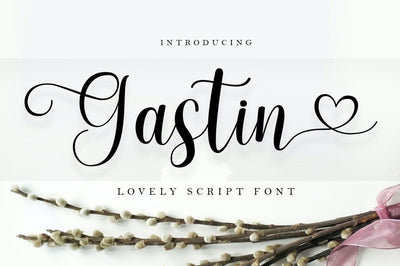
Gastin Script
Gastin Script is a modern calligraphic design, including Regular. This font is casual and pretty with a stroke. It can be used for various purposes. such as logos, product packaging, wedding invitations, branding, headlines, signage, labels, signatures, book covers, posters, quotes, and many more.